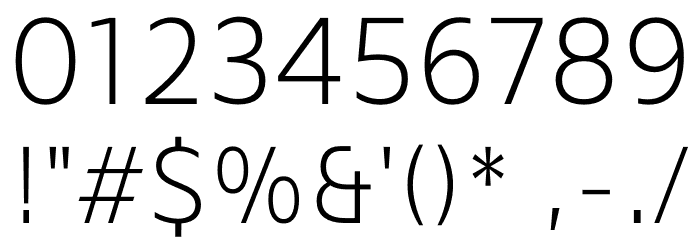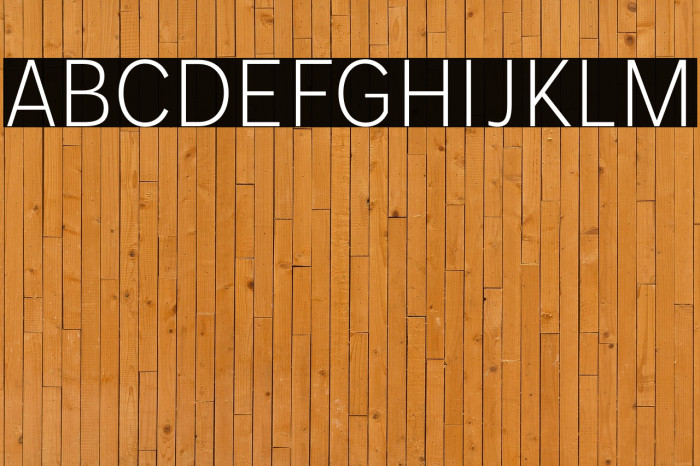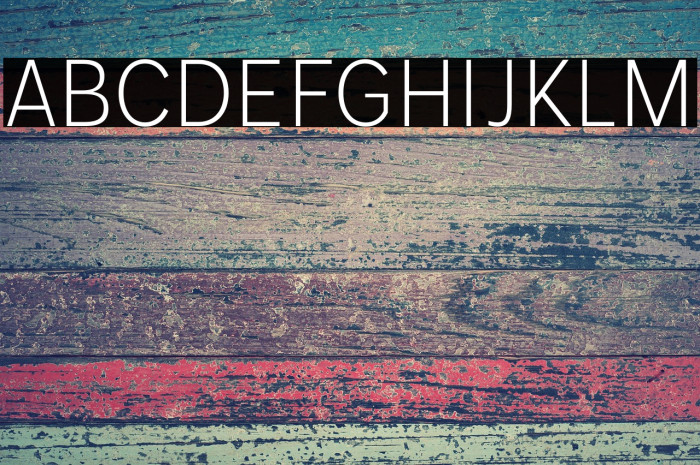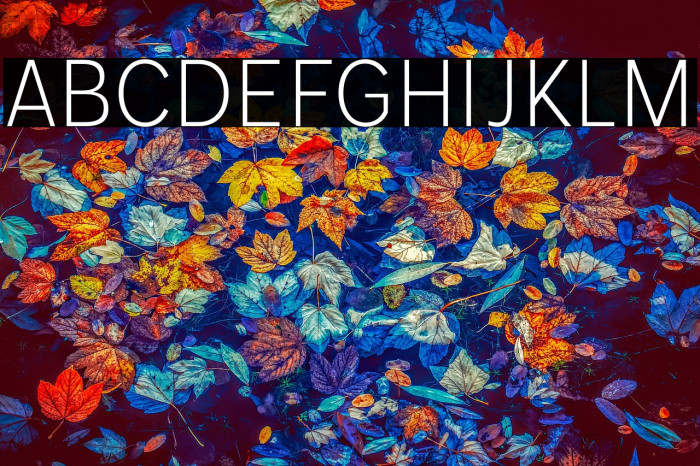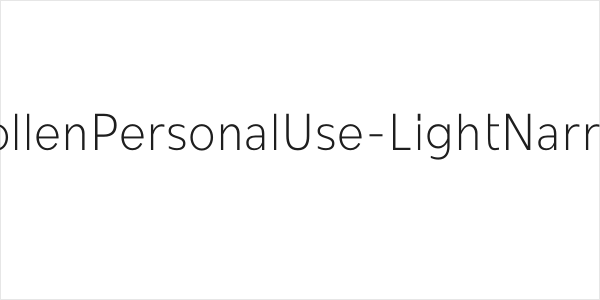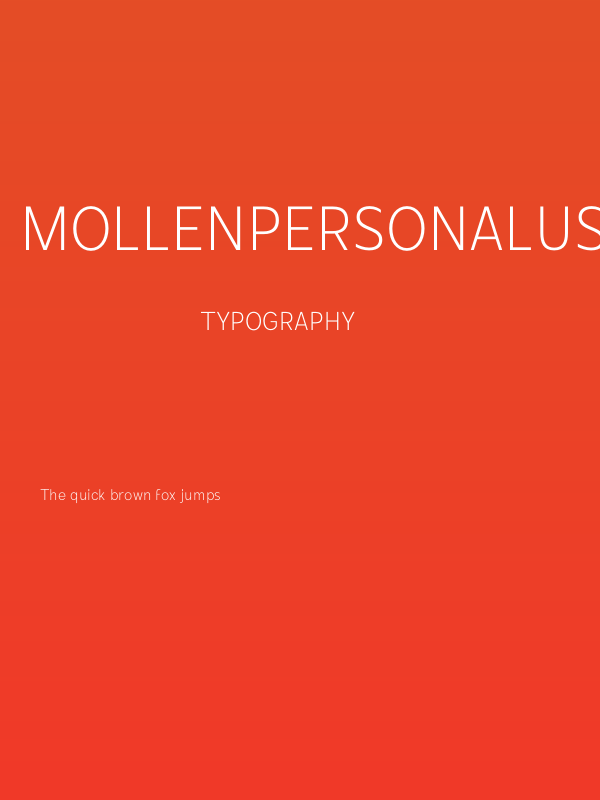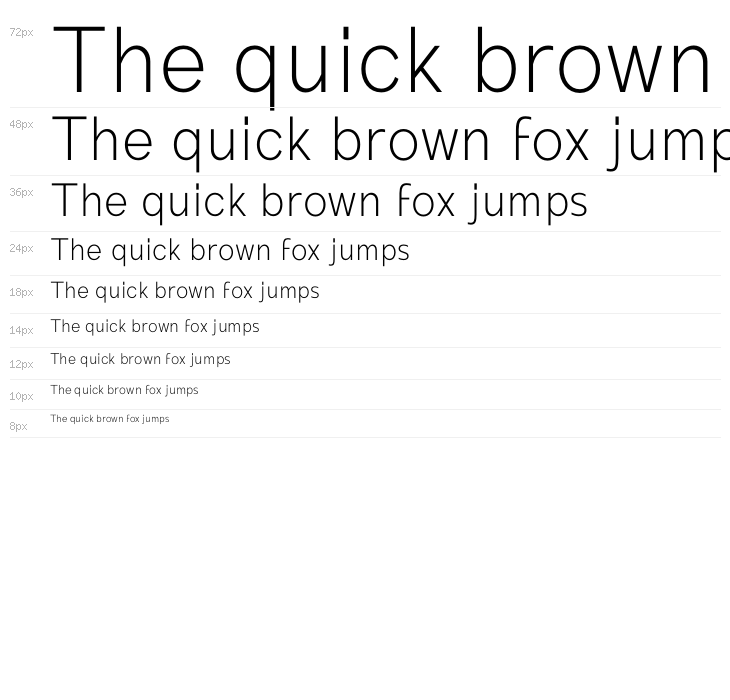
MollenPersonalUse-LightNarrow Font
MollenPersonalUse-LightNarrow Description
This font exhibits a clean and modern sans-serif style with a light weight and narrow width. The characters are evenly spaced with a consistent stroke width, contributing to a minimalistic and elegant appearance. The uppercase and lowercase letters maintain a uniform height, enhancing readability and visual harmony. The numerals and special characters are designed with the same simplicity, making them suitable for a variety of applications. The overall design is sleek and contemporary, ideal for projects that require a refined and understated aesthetic.
| Proposed Projects | Ideal for branding, editorial design, websites, and minimalist graphic design projects. |